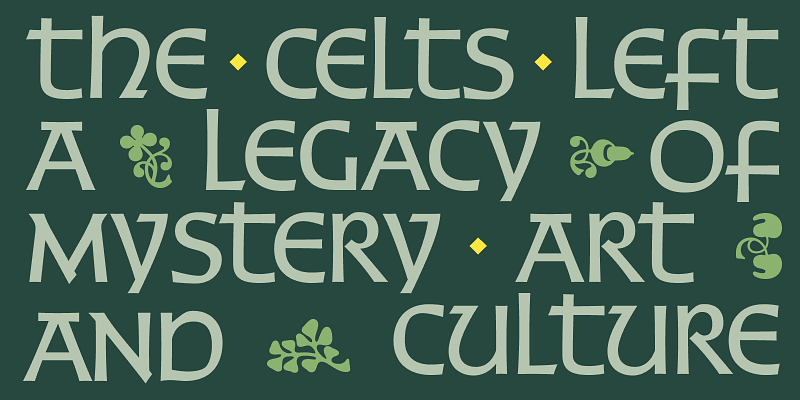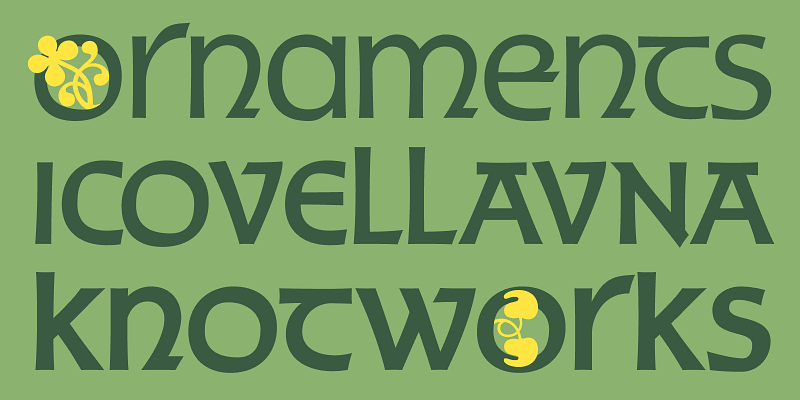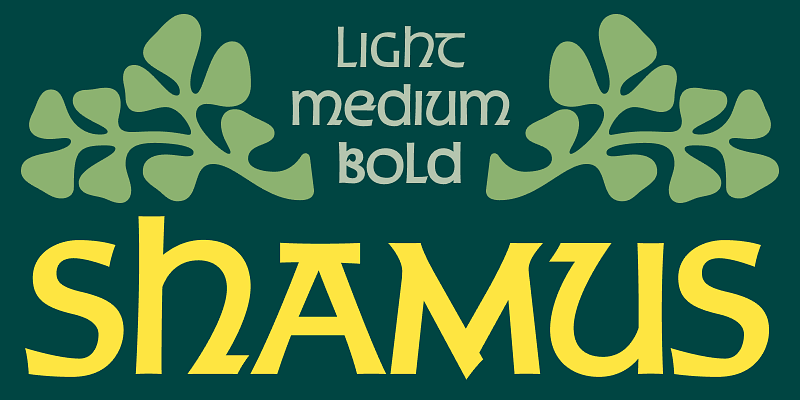
Shamus is an uncial font family designed by Steve Jackaman and Ashley Muir in 2010. As its name suggests, Shamus is a Gaelic-themed script combining uppercase and lowercase characters. Available in Light, Medium, and Bold! Just think of it! Old-fashioned pub and restaurant branding, modern fantasy products, rustic wedding invitations, and travel brochures, Shamus will surely give any project an air of mysticism without the blarney.